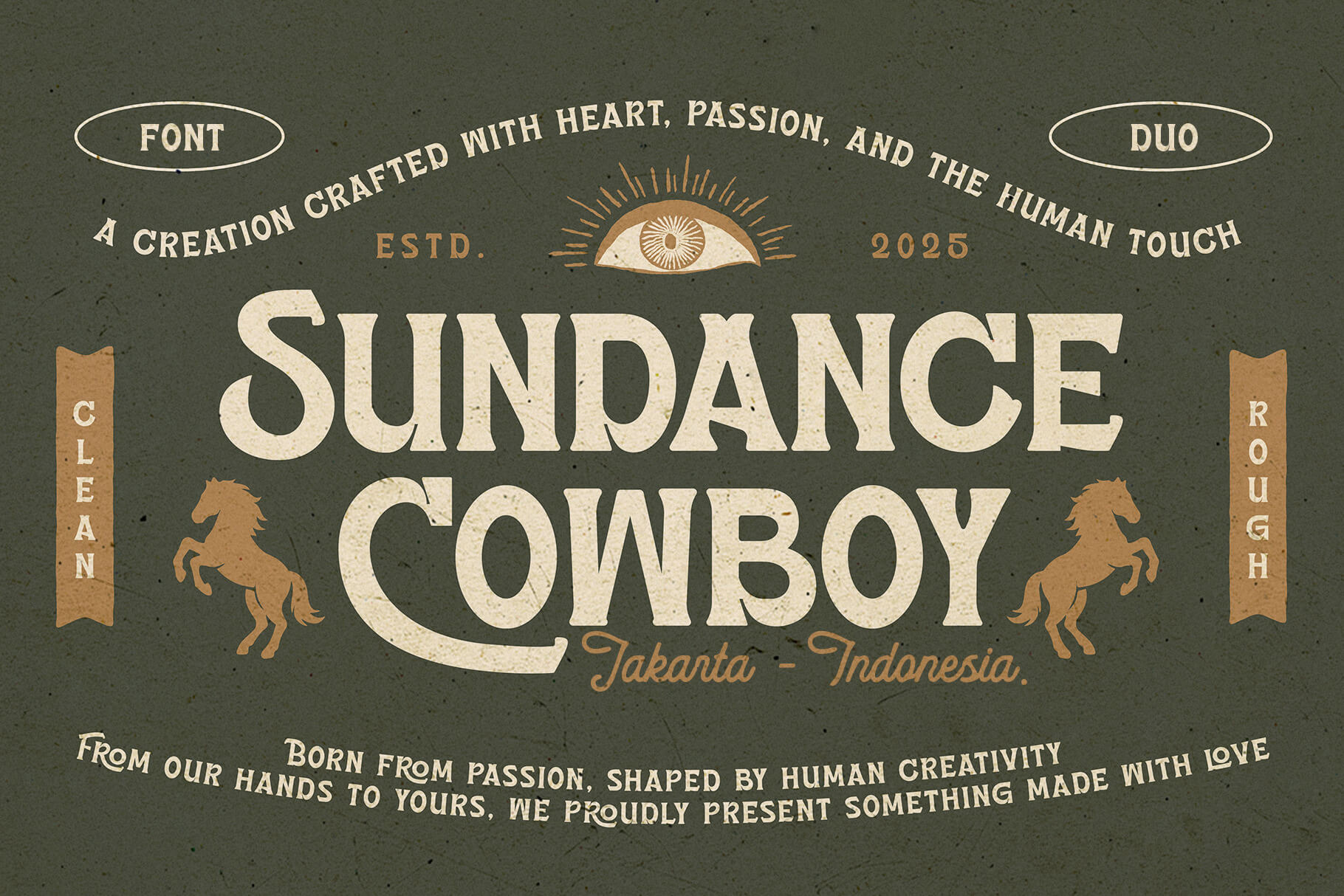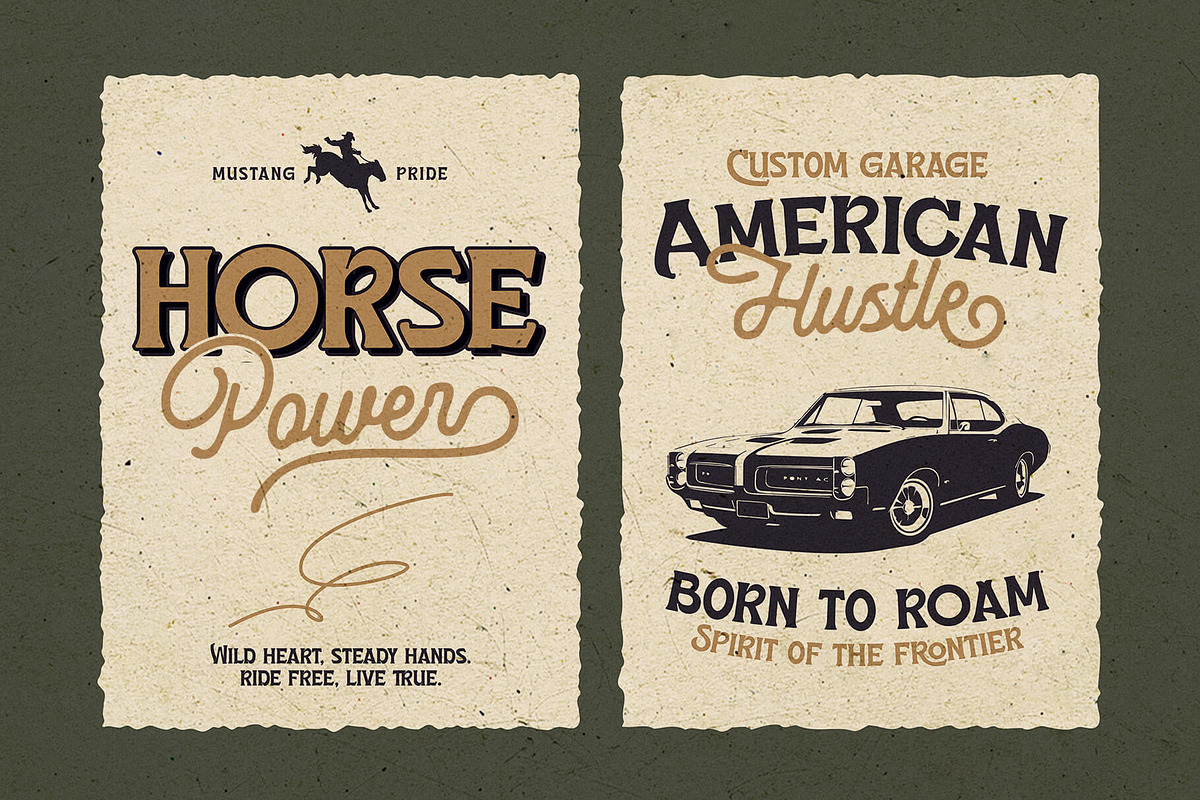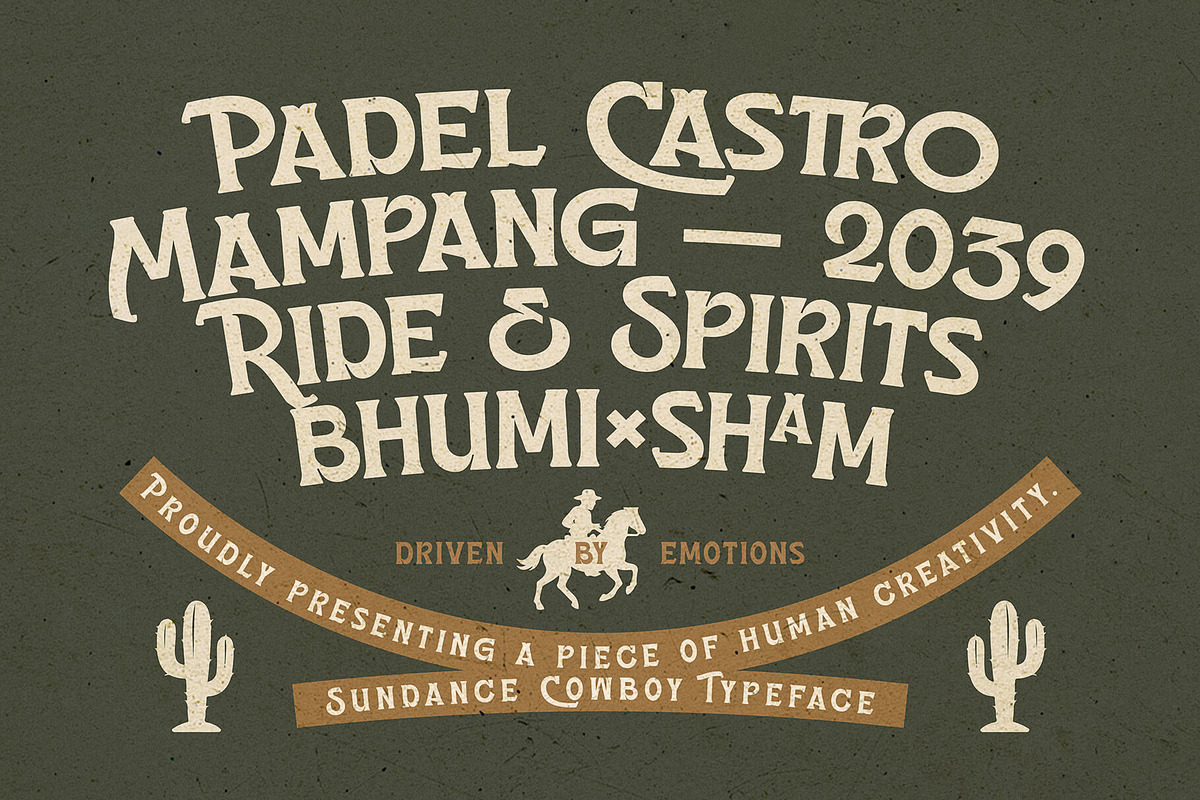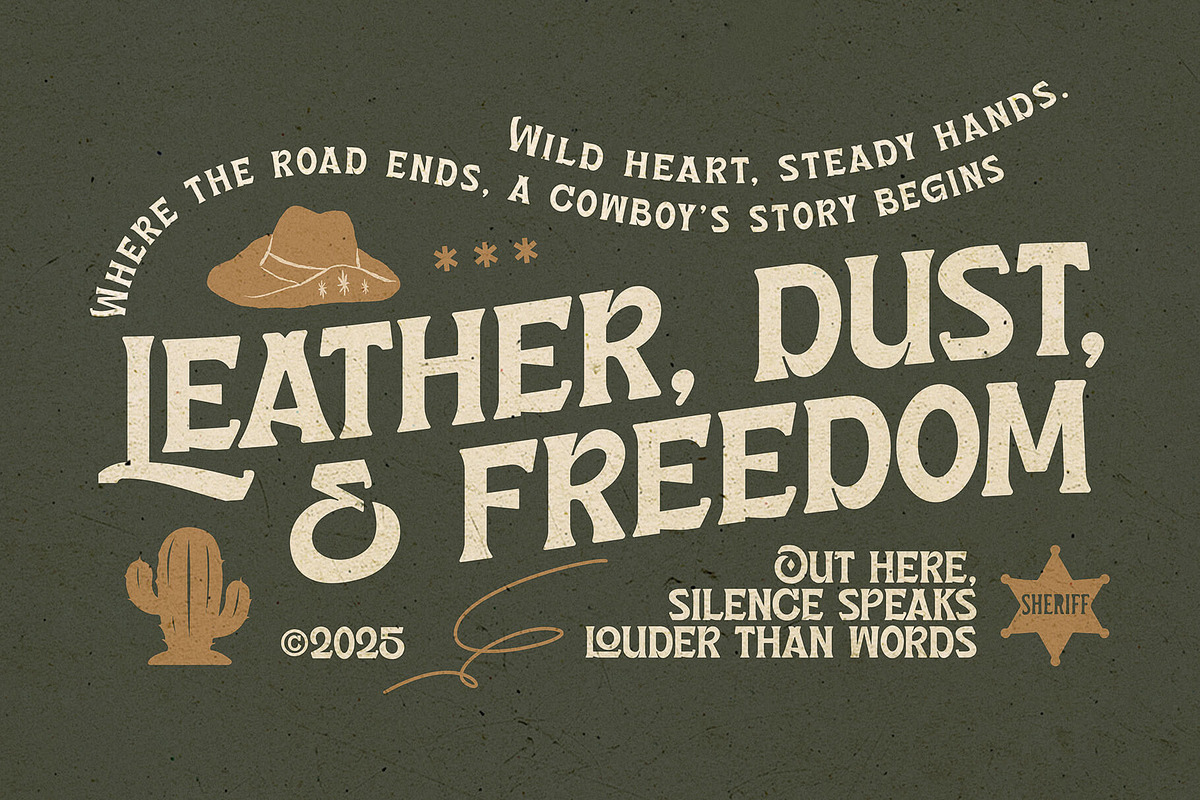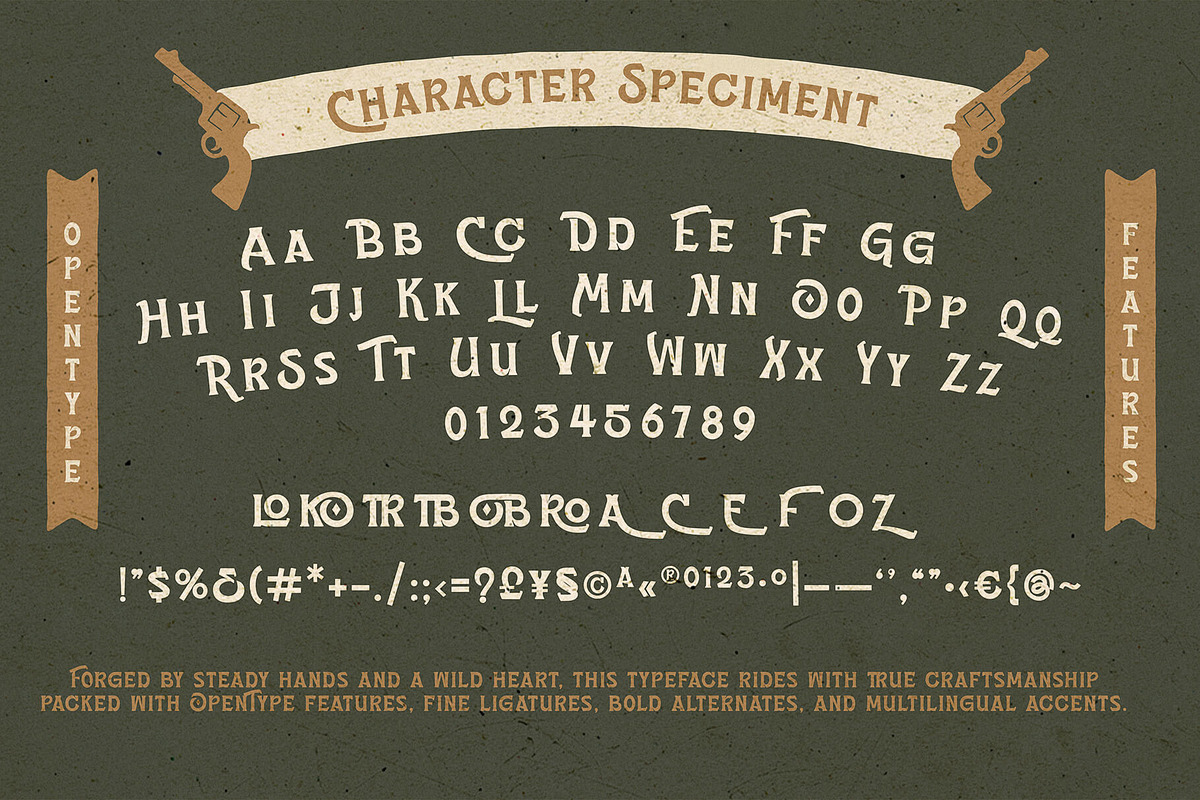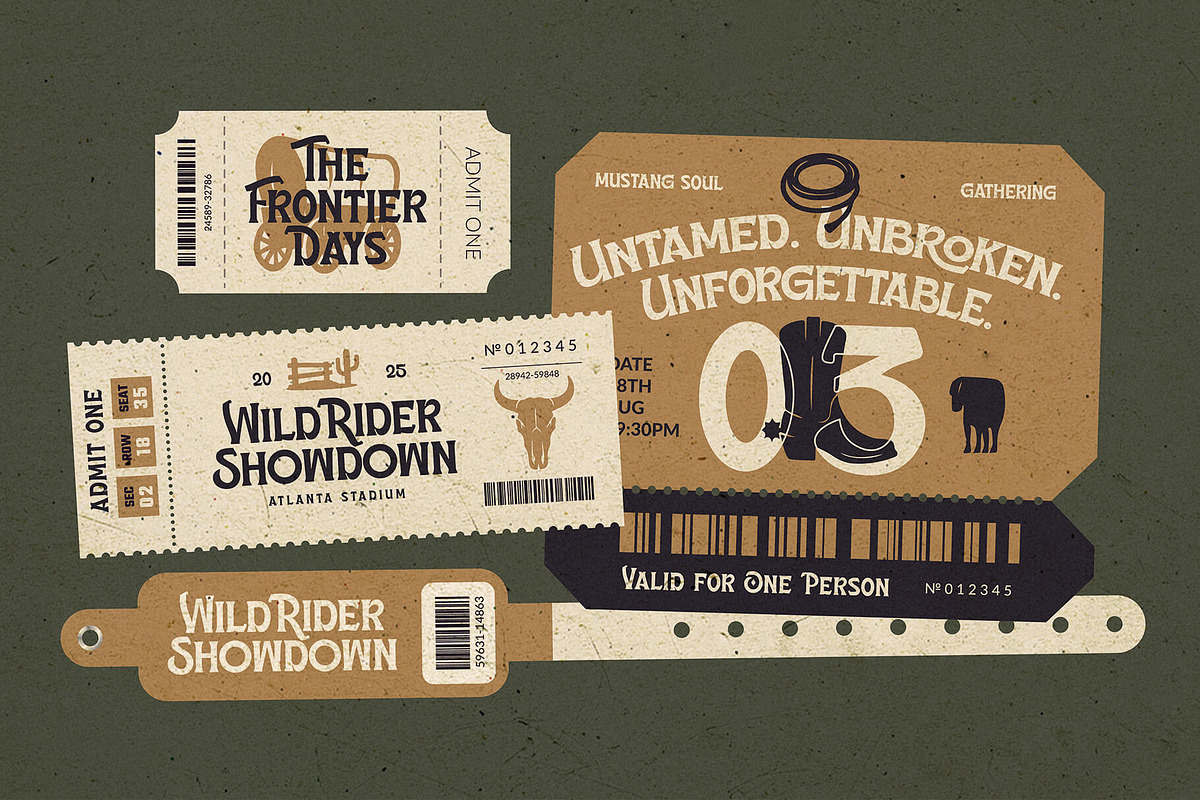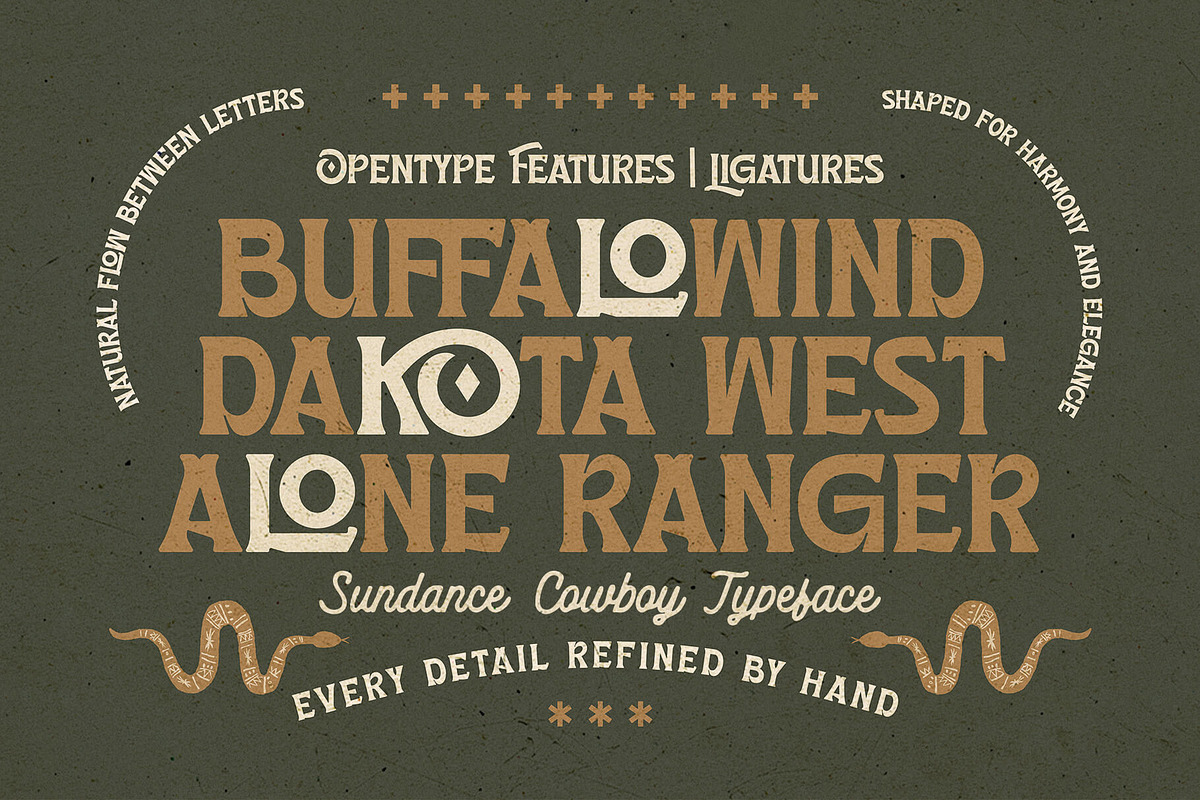
Sundance Cowboy - Font Duo
Sundance Cowboy is a bold display serif inspired by the untamed freedom of the frontier—crafted with texture, warmth, and a story to tell. Each letter rides with handcrafted character, echoing desert winds, saddle leather, and timeless Americana spirit. It’s confident, rugged, and soulful—made for designers who want their message to feel alive with heritage and presence.
To complete the journey, this font comes paired with Heartstrong, a soft monoline script that adds contrast and emotional balance. Use Sundance Cowboy for strong headlines and bold identity work, and Heartstrong for signatures, taglines, quotes, or branding touches that feel personal and human. Together, they form a harmonious duo—grit and grace, boldness and sincerity—ready to elevate everything from packaging and posters to apparel, logos, and storytelling visuals.